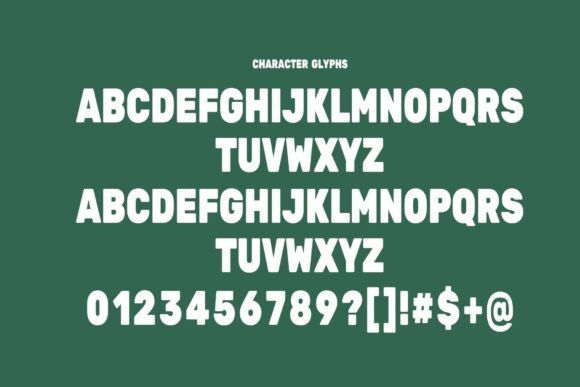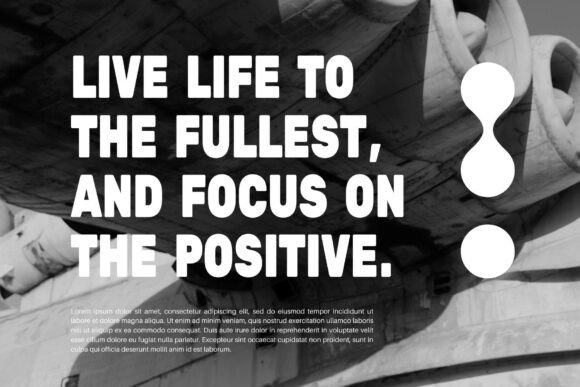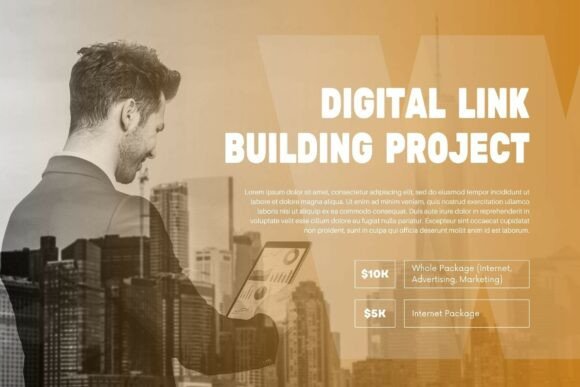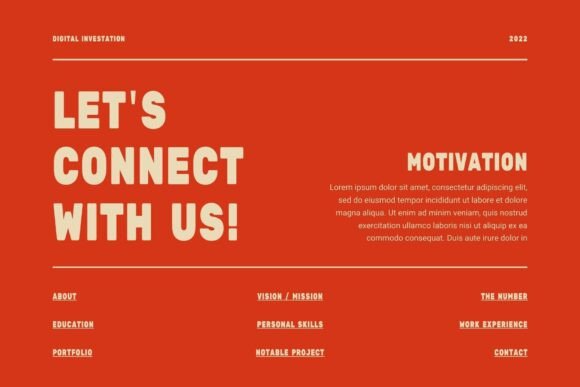
The Ultimate Font for Creatives: A Deep Dive into Everyone Font
I’ll never forget the time I was working on a branding project for a new coffee shop. My client was adamant that the font had to be “friendly, yet bold” and “easy to read, even on a busy social media feed.” I scoured the internet for the perfect font, but nothing seemed to fit the bill. That was until I stumbled upon Everyone Font. In this article, I’ll share my experience with this fantastic font, its features, and how to make the most of it in your designs.
An Honest Review of Everyone Font
- ✨ Highly legible and approachable: Everyone Font is perfect for creating bold headings and graphics that grab attention.
- ✅ Versatile: This font combines simplicity and versatility, making it suitable for everyday use in branding, social media graphics, product packaging, and more.
- 💡 Modern sans-serif design: Everyone Font has a fresh and modern look that’s perfect for contemporary designs.
While Everyone Font is an excellent choice for many design projects, there are a few things to keep in mind:
- ⚠️ Limited language support: Everyone Font may not support all languages, so be sure to check the font’s specifications before using it for a multilingual project.
- 🤔 Not ideal for body text: Due to its bold nature, Everyone Font might not be the best choice for lengthy body text. Instead, use it for headings and titles.
The Story Behind Everyone Font
Everyone Font was designed with the goal of creating a friendly and approachable sans-serif font that’s perfect for everyday use. The design team behind Everyone Font wanted to create a font that’s both modern and highly legible, making it suitable for a wide range of design projects.
Q: What is Everyone Font best used for?
Everyone Font is best used for designs that require a friendly, bold, and modern sans-serif font, such as branding, social media graphics, product packaging, and bold headings.
Q: Is Everyone Font suitable for body text?
While Everyone Font is highly legible, its bold nature makes it more suitable for headings and titles. For body text, consider using a font with a lighter weight and higher x-height for better readability.